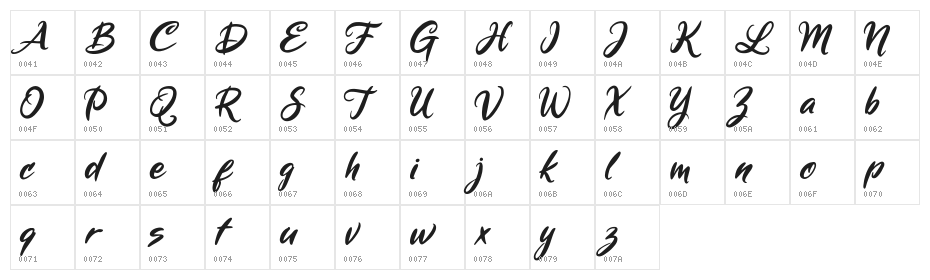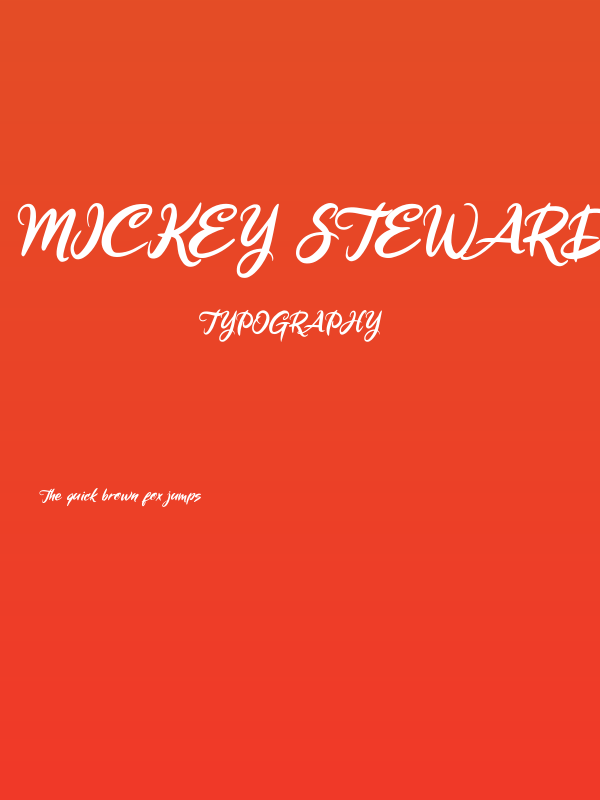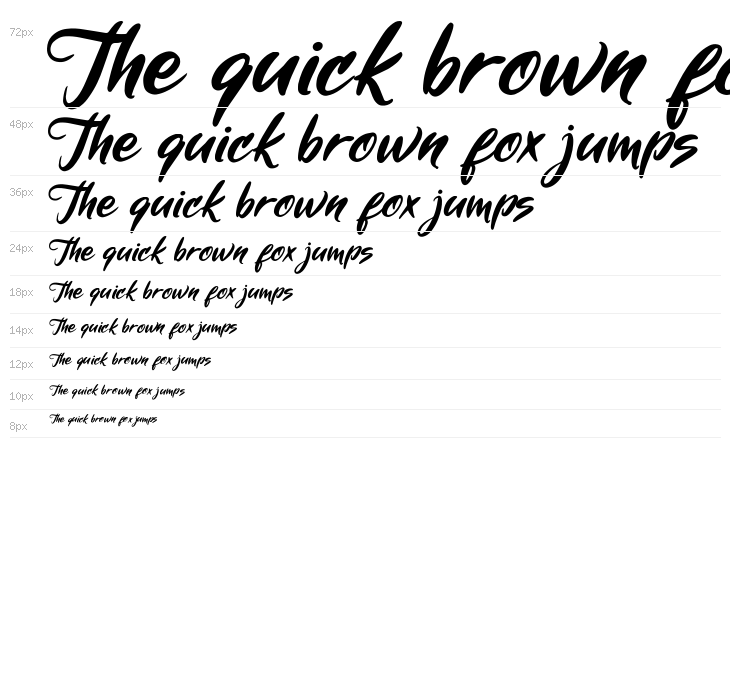
Mickey Steward Font
Mickey Steward Description
This font features a flowing, cursive style with elegant, sweeping strokes that give it a dynamic and lively appearance. The uppercase letters are characterized by their bold, dramatic curves, while the lowercase letters maintain a consistent fluidity, enhancing the script's overall cohesiveness. The font's design is reminiscent of traditional calligraphy, with a modern twist that makes it suitable for a variety of contemporary applications. The characters are well-balanced, with a slight slant that adds to the font's graceful movement. This font is ideal for projects that require a touch of sophistication and flair.
| Proposed Projects | Ideal for wedding invitations, branding, greeting cards, and elegant logo designs. |